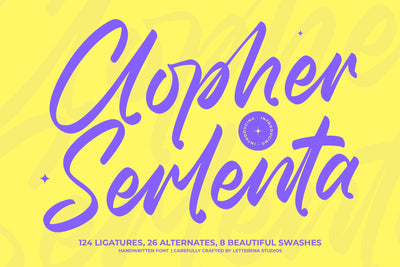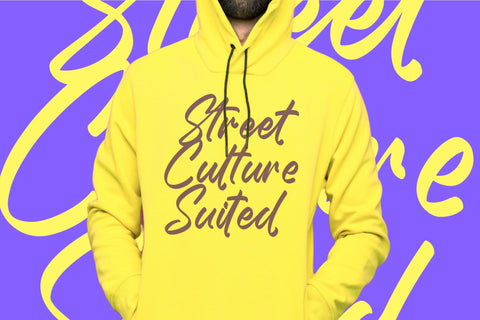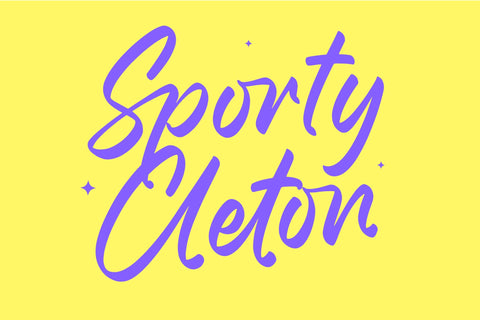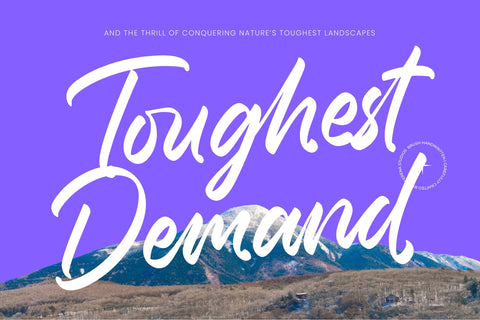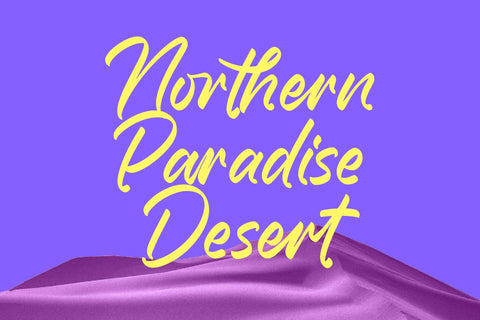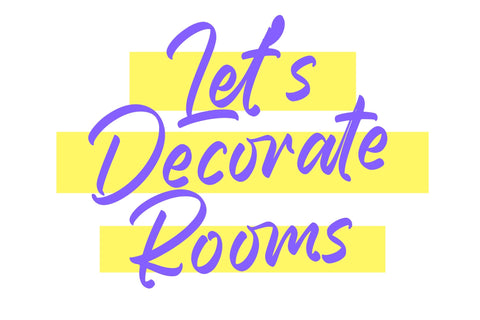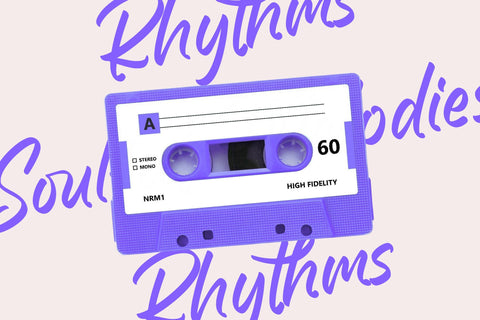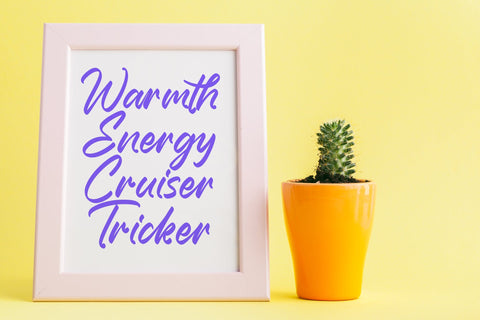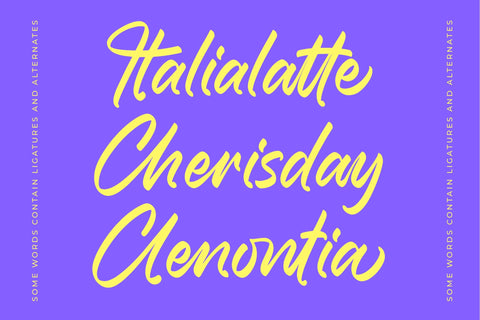
Clopher Serlenta - Handwritten Font
Clopher Serlenta - Handwritten Font , from Letterena, is a Luxury Script font, suitable for any projects such as: logos, branding projects, homeware designs, product packaging, mugs, quotes, posters, shopping bags, t-shirts, book covers, name card, invitation cards, greeting cards, label, photography, watermark, special events, and all your other luxury and beautiful projects that need a Luxury Script taste.
Ligature 124 Alternate 26 & 8 Swashes